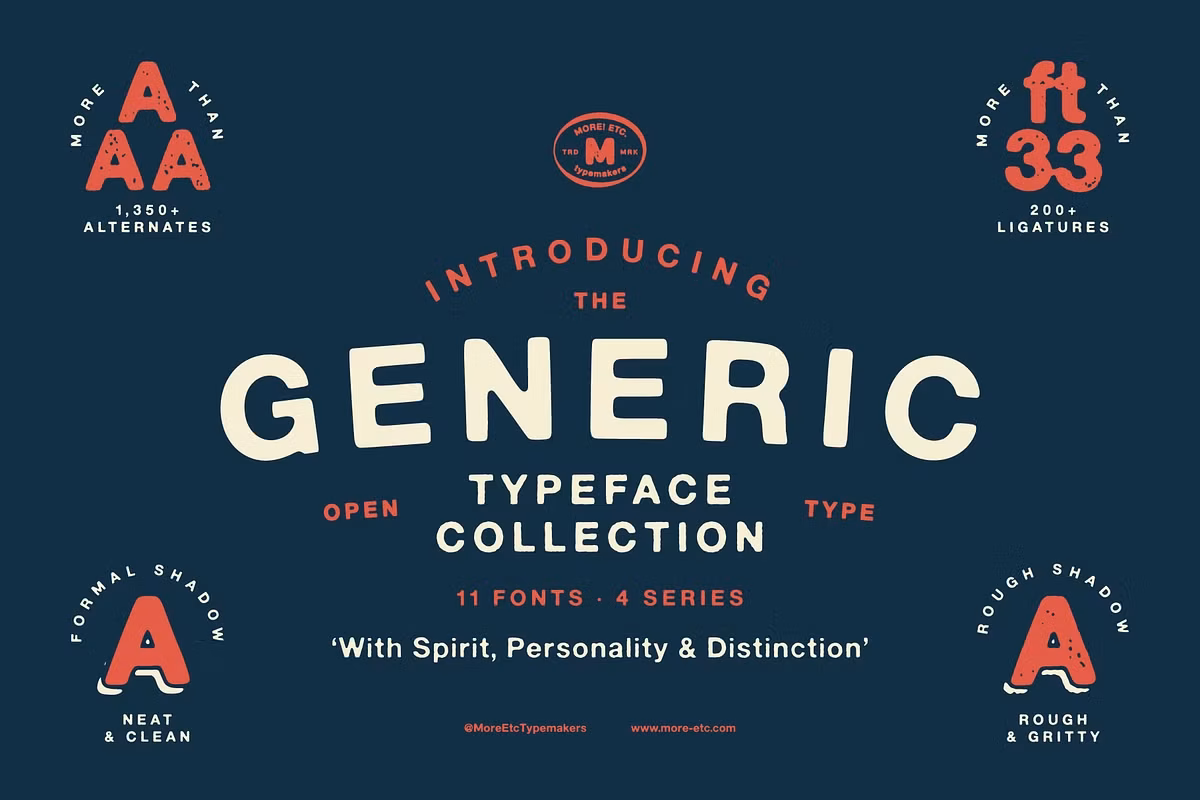
Generic Typeface Collection Free Download is a versatile and comprehensive bundle of fonts designed for a variety of design needs. Featuring a mix of modern sans-serif, serif, and display fonts, this collection provides a wide range of options suitable for both creative and professional projects.
From clean and minimalistic to bold and expressive, the Generic Typeface Collection offers flexibility across different industries, including branding, web design, editorial projects, logos, packaging, and more. Whether you're working on a sleek, modern brand or a classic, timeless design, this collection ensures that you have the right font for every occasion.